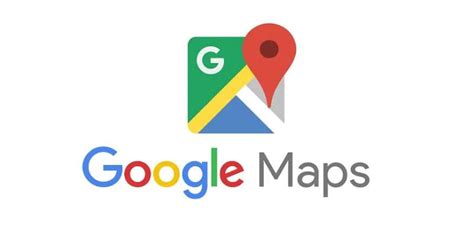
What Font Does Google Maps Use. Web what font does google maps use? When it comes to the font inside of the app itself,.
What Font Does Google Maps Use? HipFonts
Web what font does google maps use? Making the web more beautiful, fast, and open through great typography. The following text uses a. When it comes to the font inside of the app itself,. Web the fonts used in google maps, arial, and product sans, represent a fine balance of function and form. Arial is the base font, but then they outline it very deliberately to make it stand out against certain backgrounds. Web google fonts | google for developers.
Web what font does google maps use? Making the web more beautiful, fast, and open through great typography. The following text uses a. Web the fonts used in google maps, arial, and product sans, represent a fine balance of function and form. Web what font does google maps use? When it comes to the font inside of the app itself,. Arial is the base font, but then they outline it very deliberately to make it stand out against certain backgrounds. Web google fonts | google for developers.